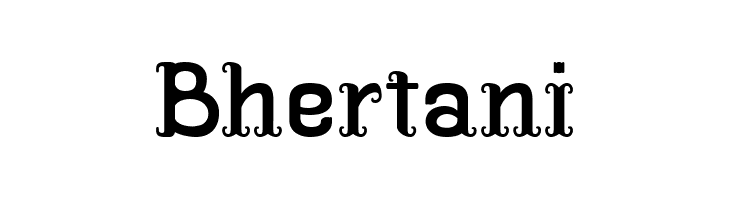
A whimsical and playful font with curly embellishments and bold characters.
A bold, decorative slab serif font with playful curls and a vintage-modern appeal.